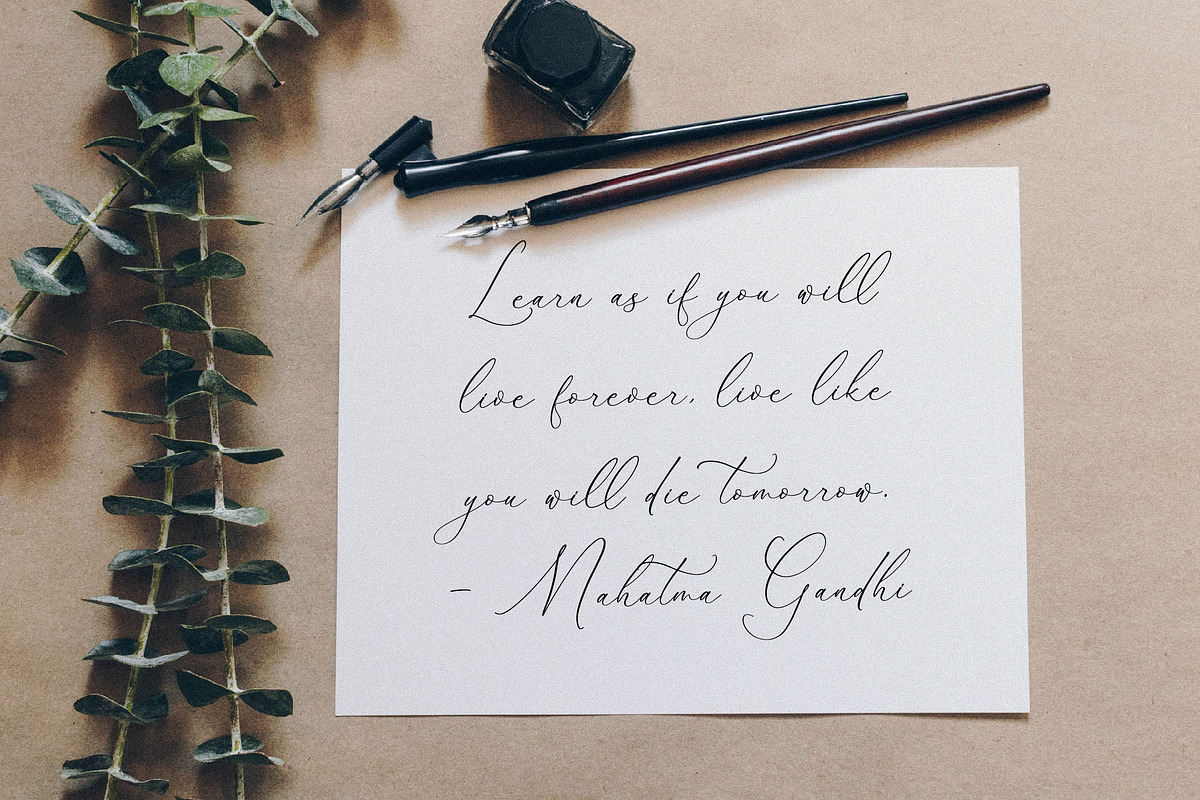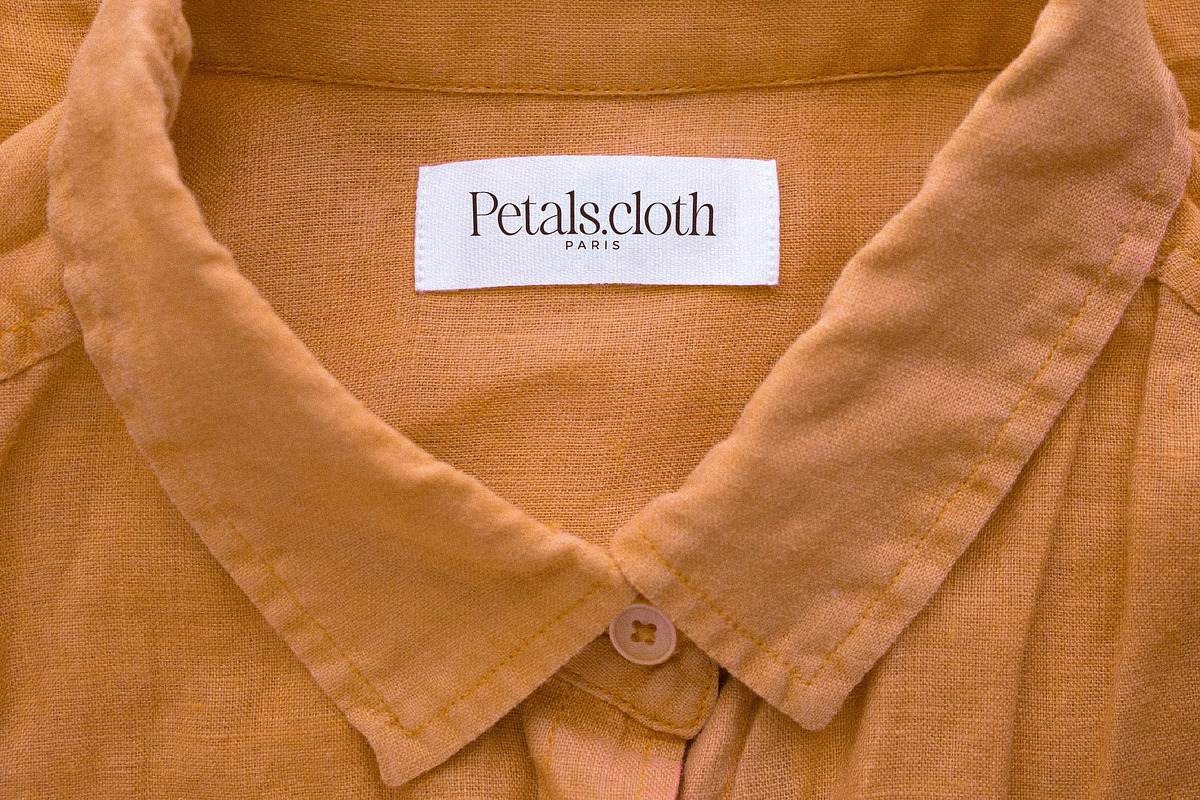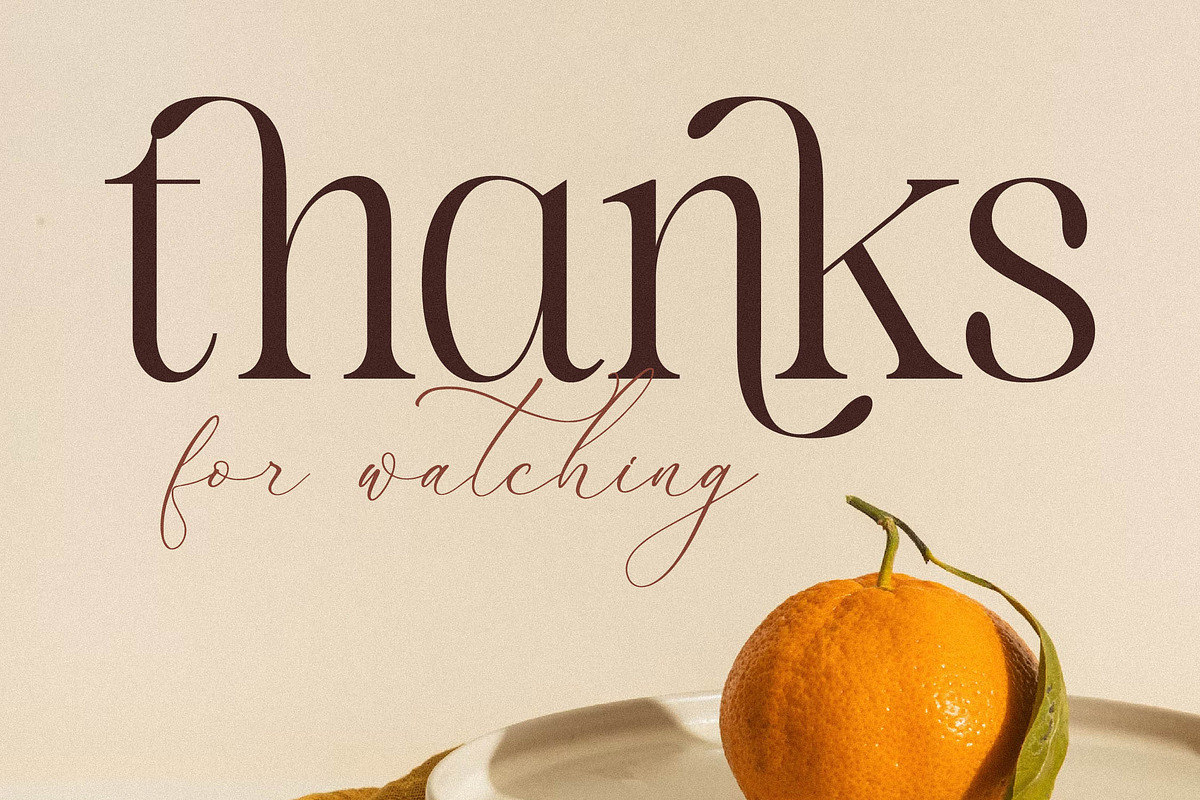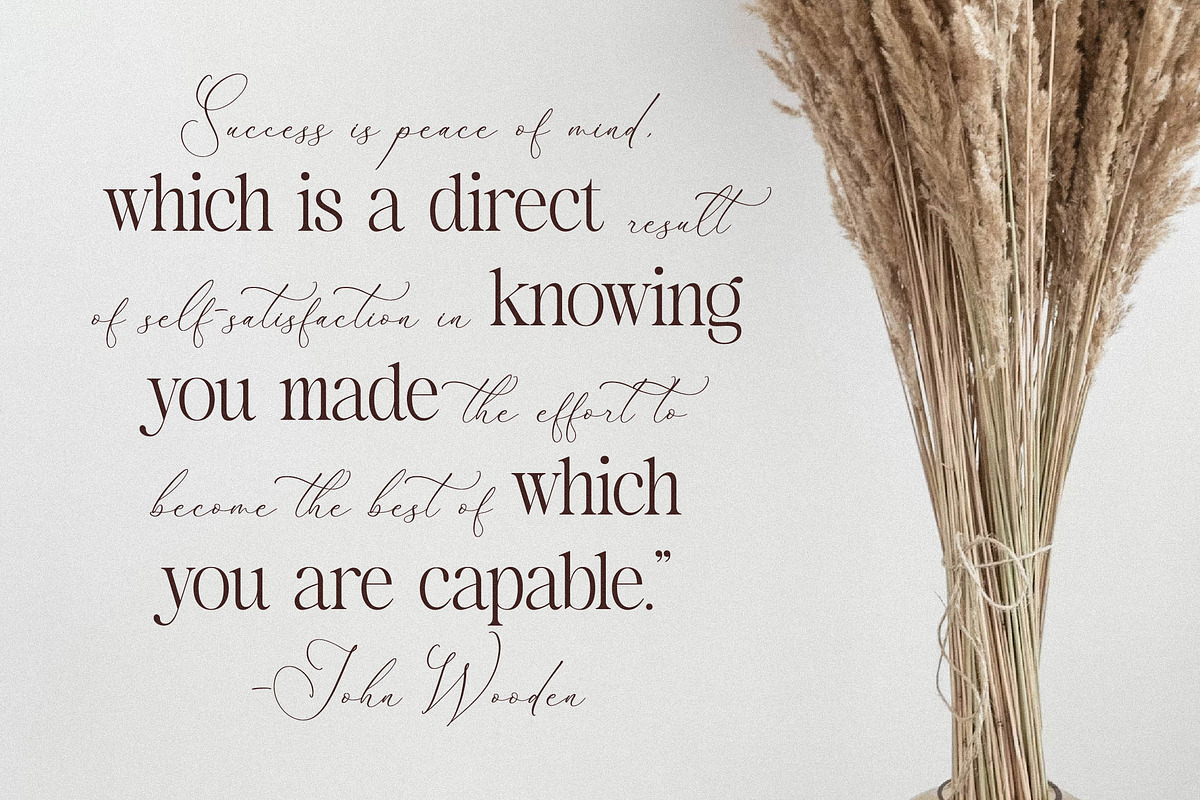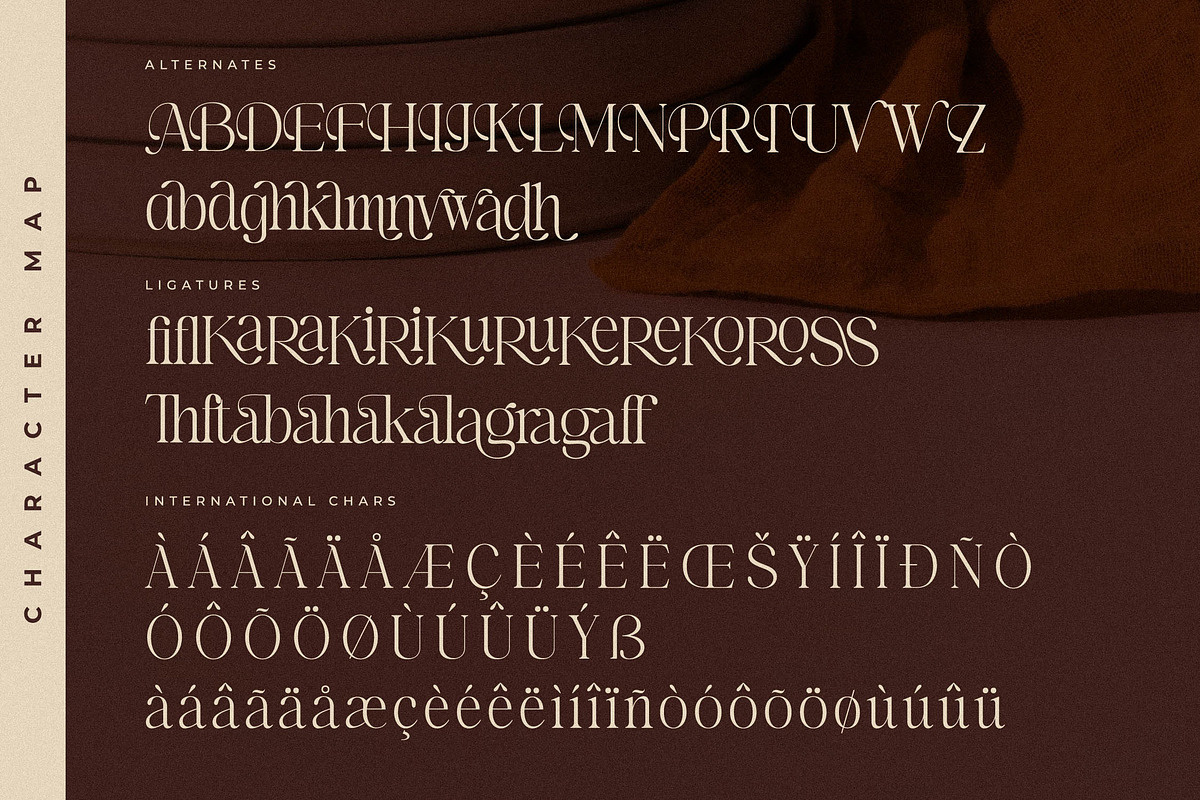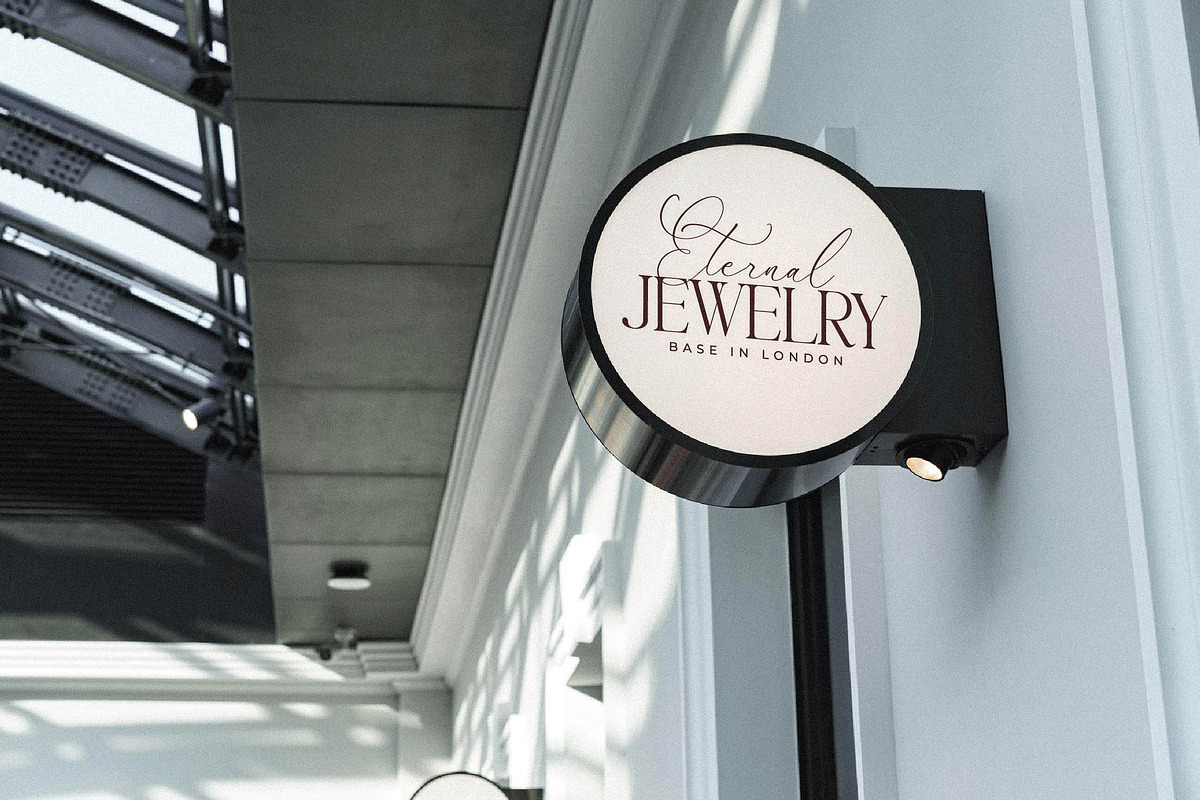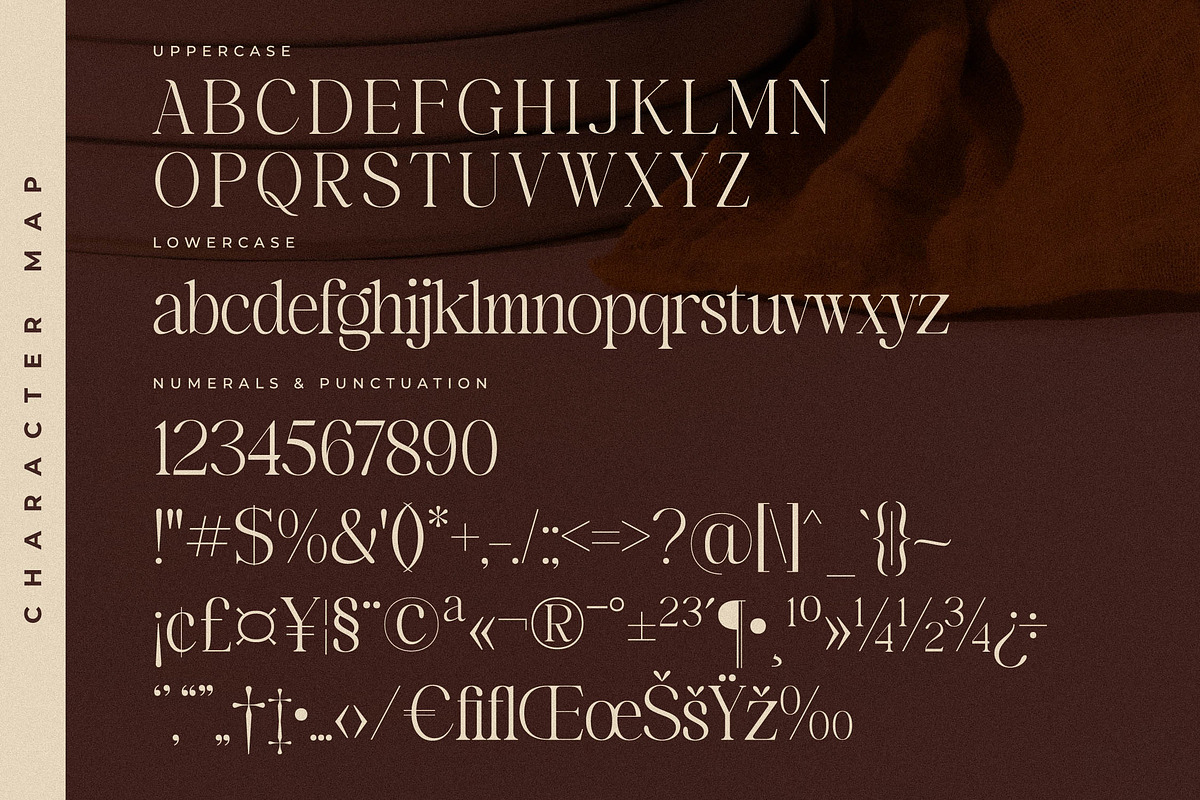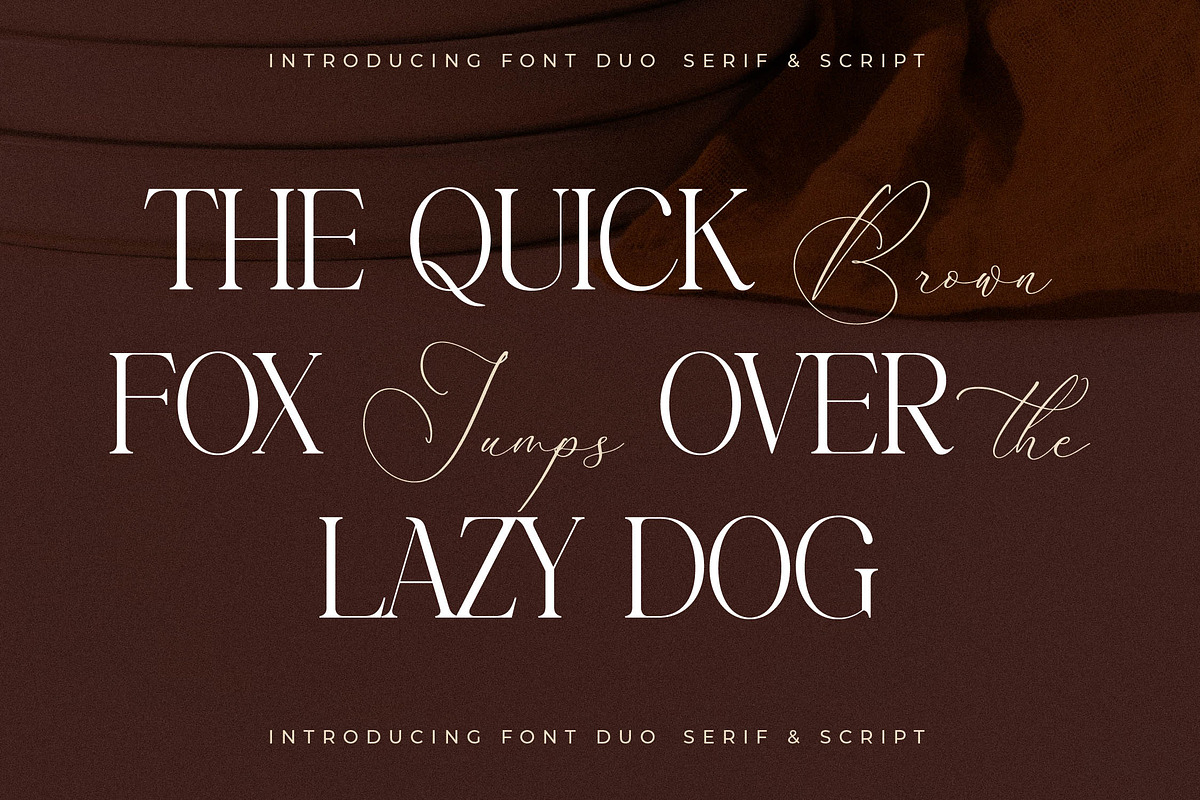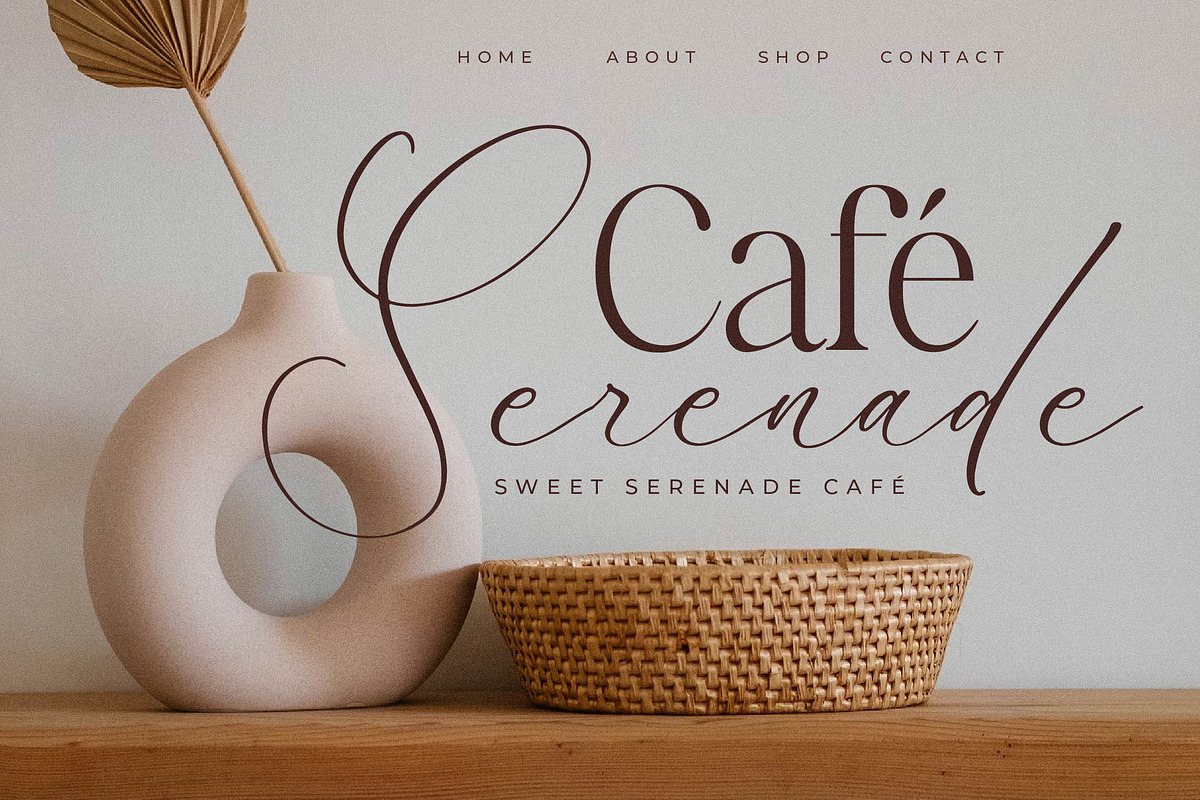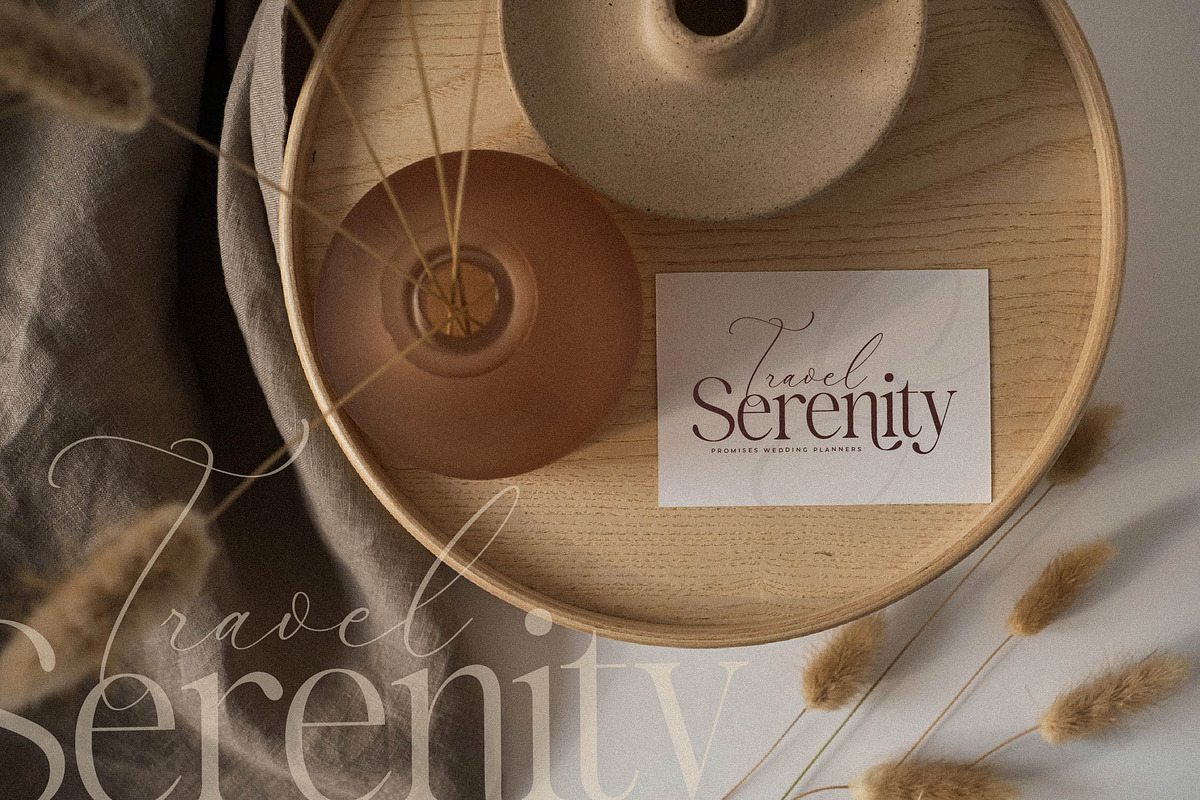
Pemberton Marsden Font Duo
Proudly present Pemberton Marsden Font Duo , created by Storytype, A serif and script typeface that has own unique style & modern look. This typeface is perfect for an elegant & luxury logo, book or movie title design, fashion brand, magazine, clothes, lettering, quotes, and so much more.